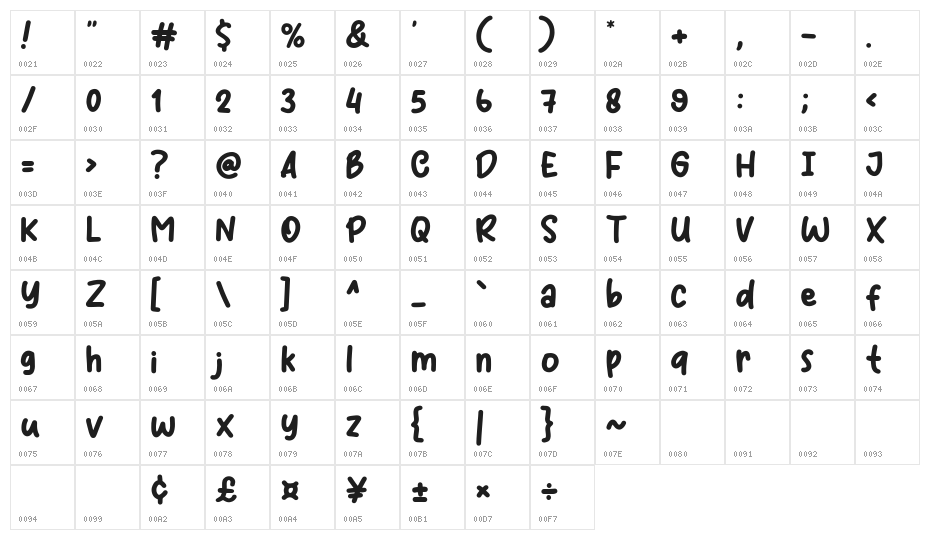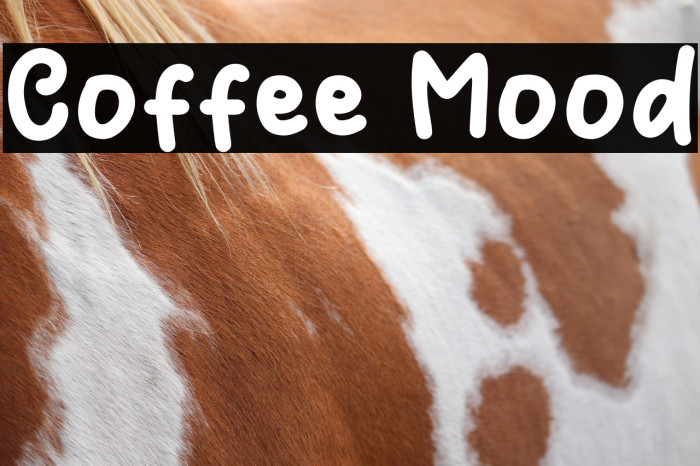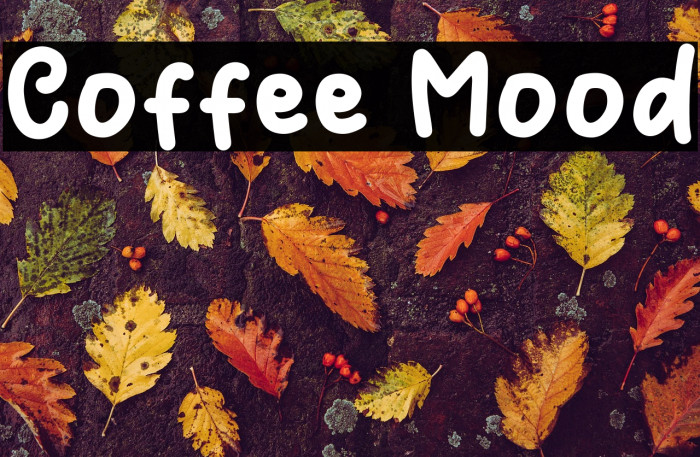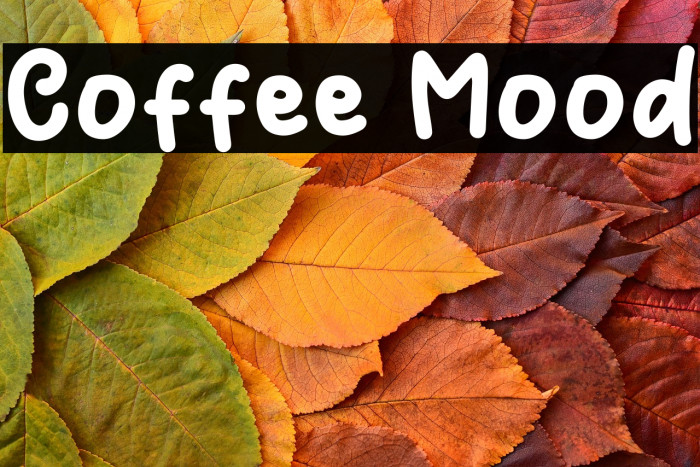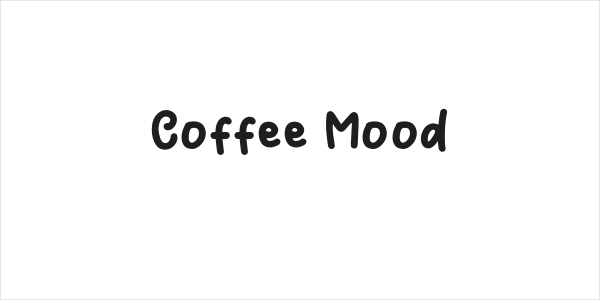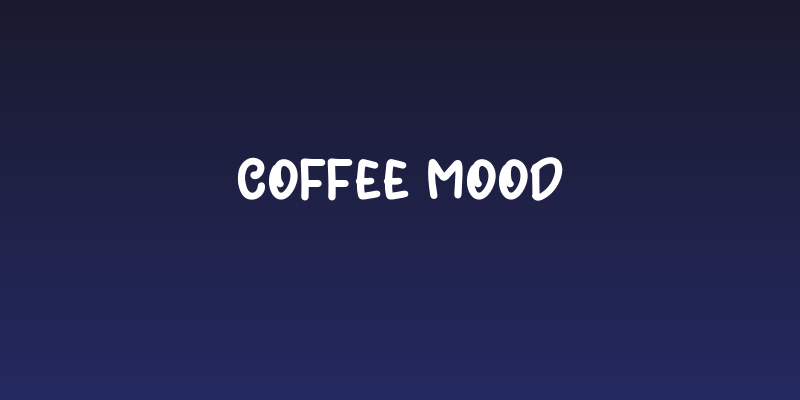
Coffee Mood Font
Coffee Mood Description
This font exudes a playful and casual vibe with its rounded, bold characters. The letters are slightly irregular, giving it a handwritten feel that adds a personal touch. The strokes are thick and consistent, contributing to a friendly and approachable appearance. The font maintains a uniform width, ensuring readability while retaining its whimsical charm. It is well-suited for projects that require a fun and informal tone, such as children's books, playful branding, or casual invitations. The character spacing is normal, providing a balanced and cohesive look across all text.
| Proposed Projects | Ideal for children's books, playful branding, casual invitations, and informal posters. |